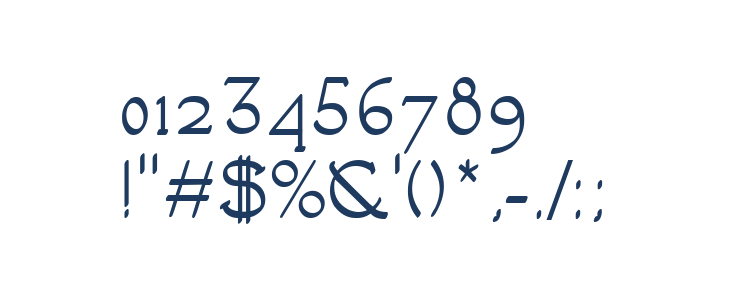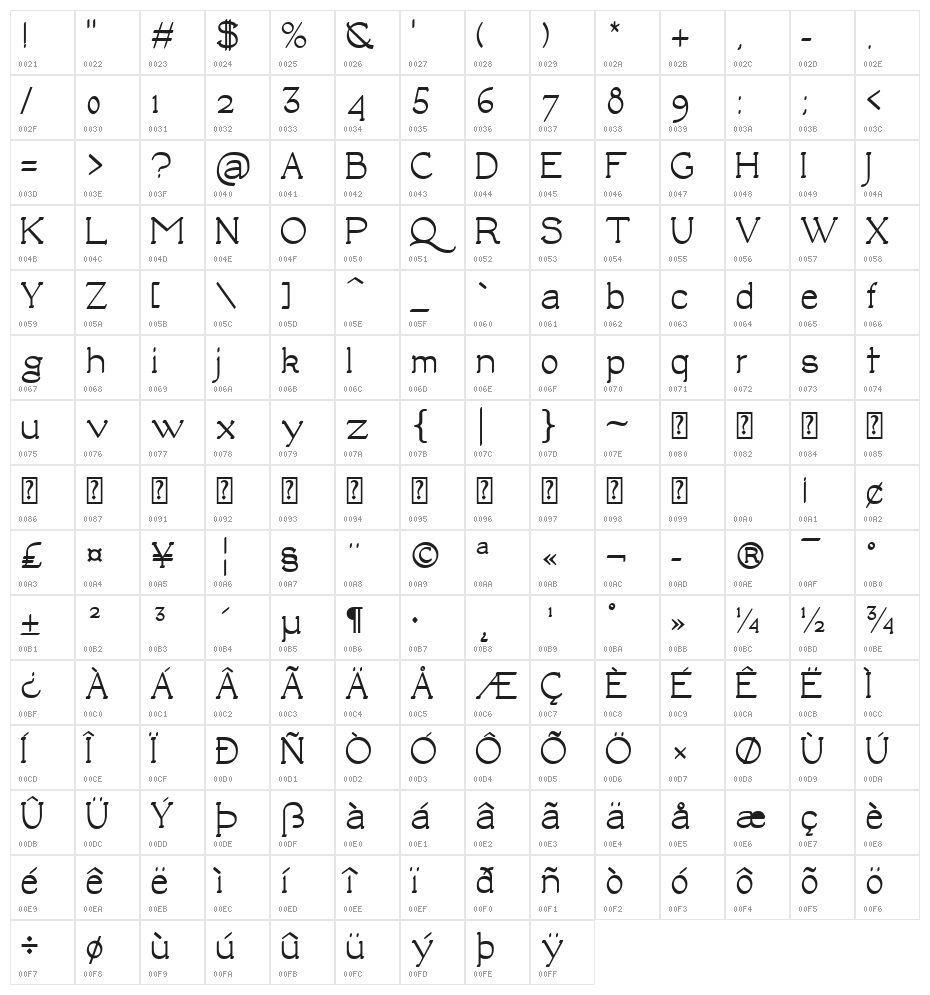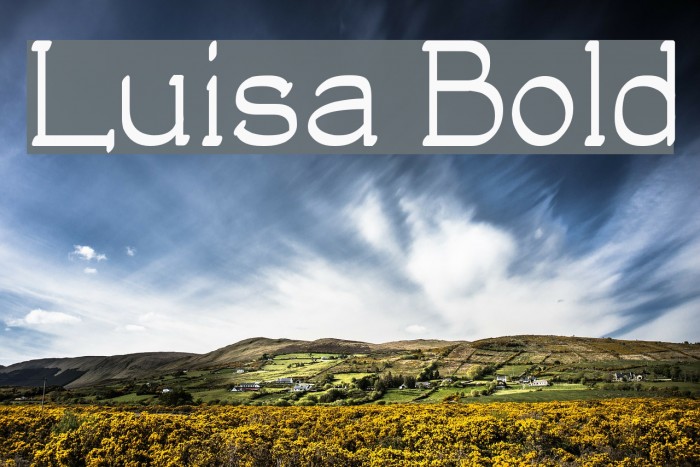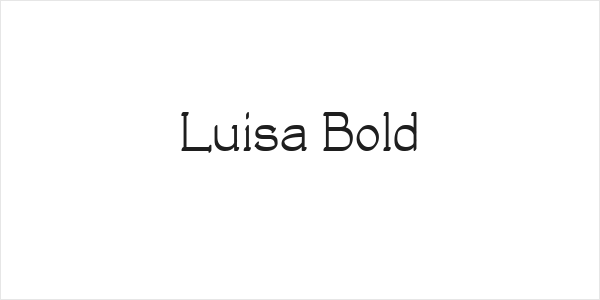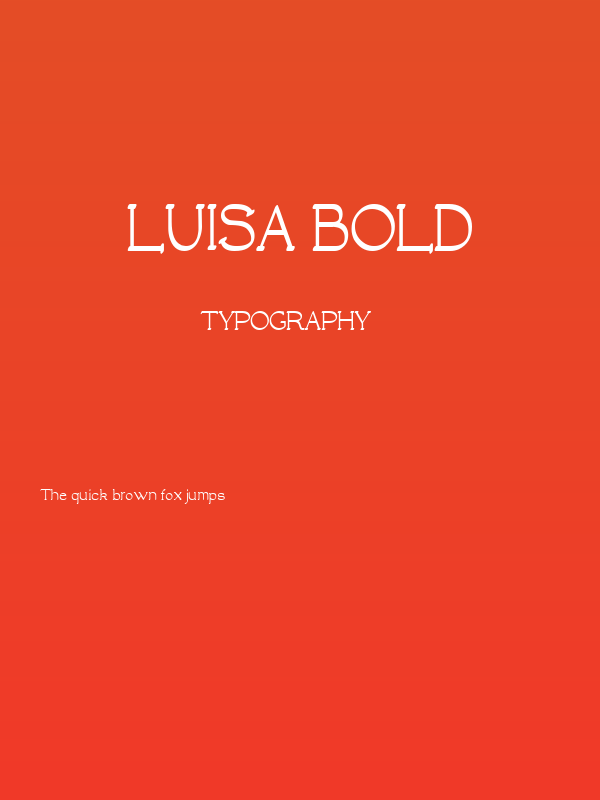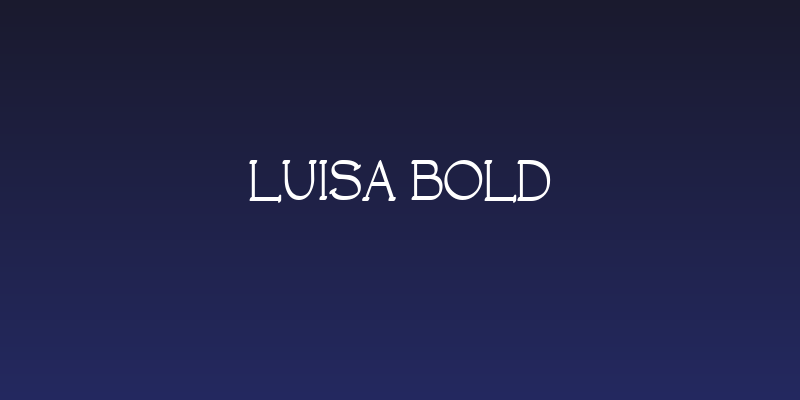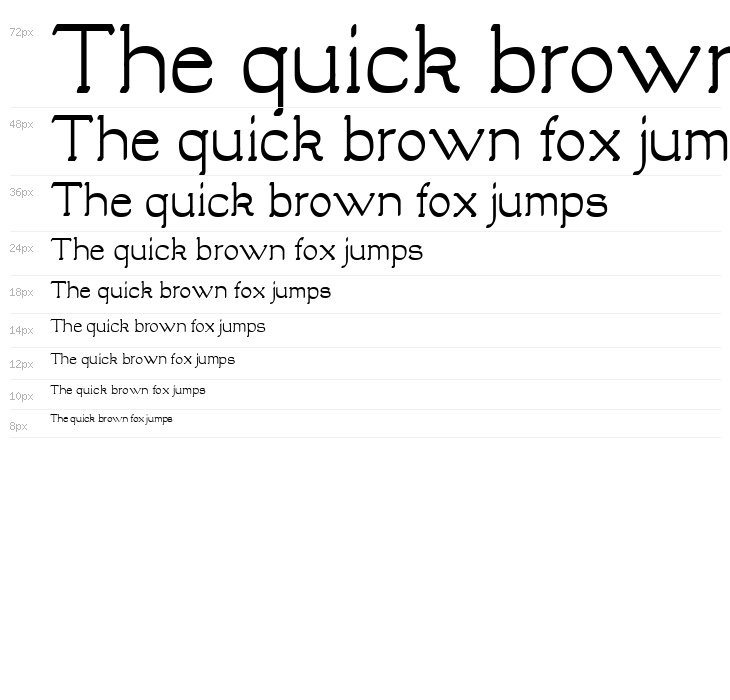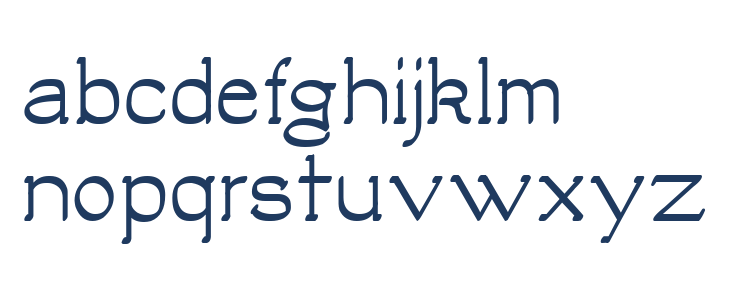
Luisa Bold Font
Luisa Bold Description
This font exhibits a unique blend of modern and classic elements, characterized by its distinct serifs and slightly curved strokes. The uppercase letters are bold and commanding, with a subtle elegance that is enhanced by the delicate serifs. The lowercase letters maintain a consistent style, offering a harmonious balance with the uppercase. The numerals are clear and legible, designed with a slight flair that adds personality. Special characters are well-integrated, maintaining the overall aesthetic. The font's design is versatile, making it suitable for a variety of applications where a touch of sophistication is desired.
Use CaseHeadlines, Logos, Editorial design
Proposed ProjectsIdeal for branding, editorial design, book covers, and elegant invitations.